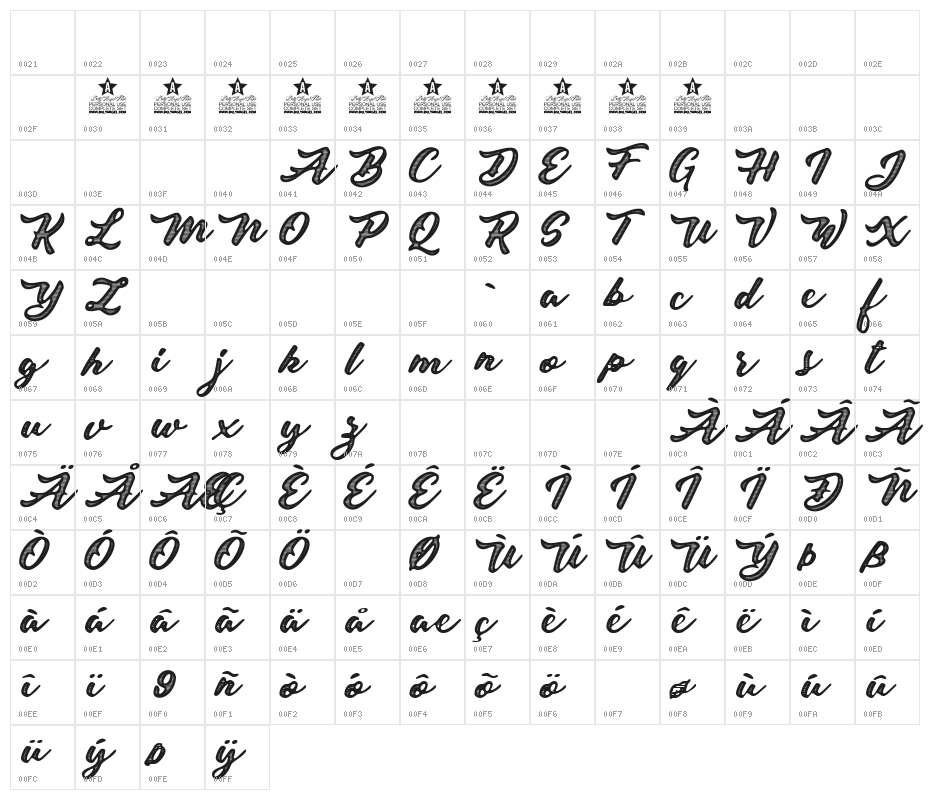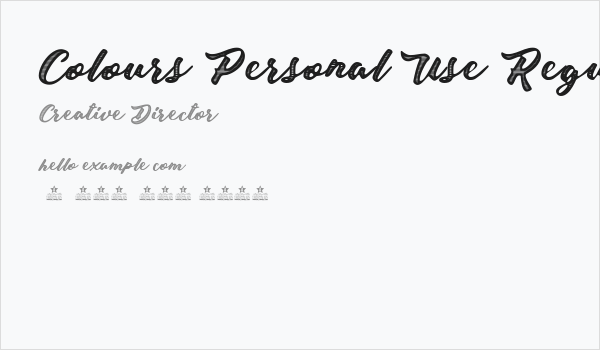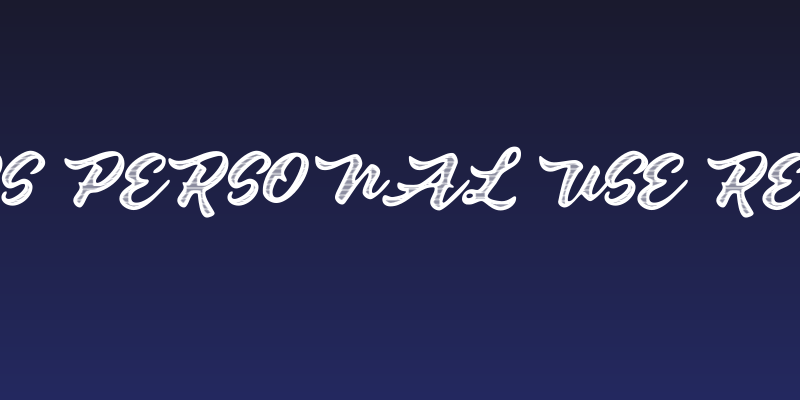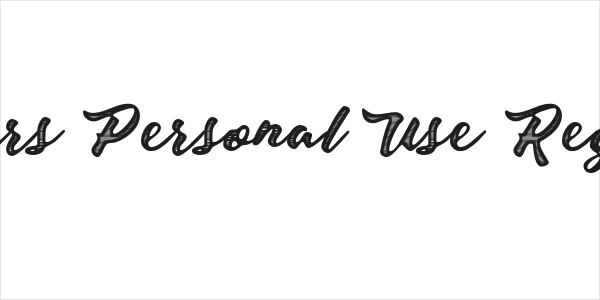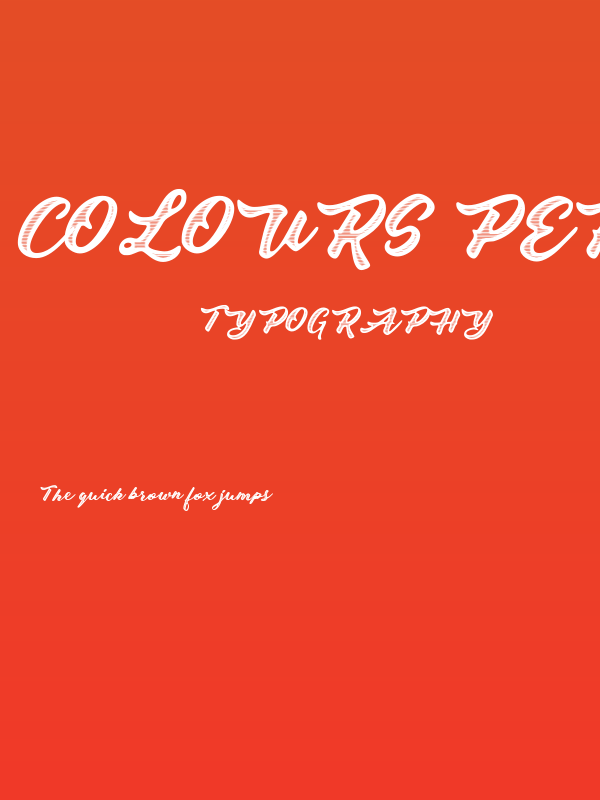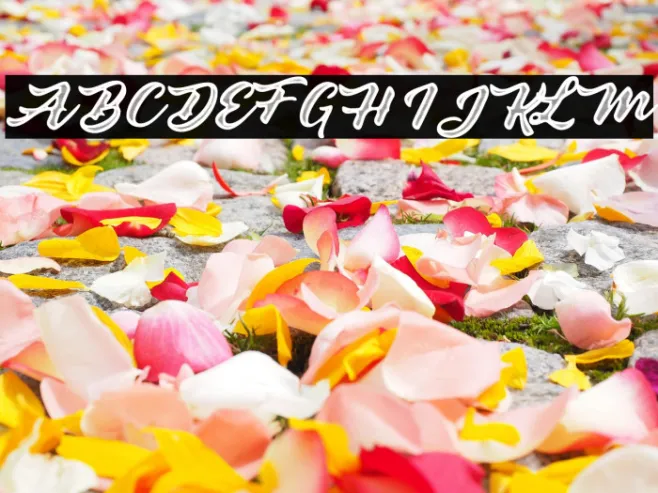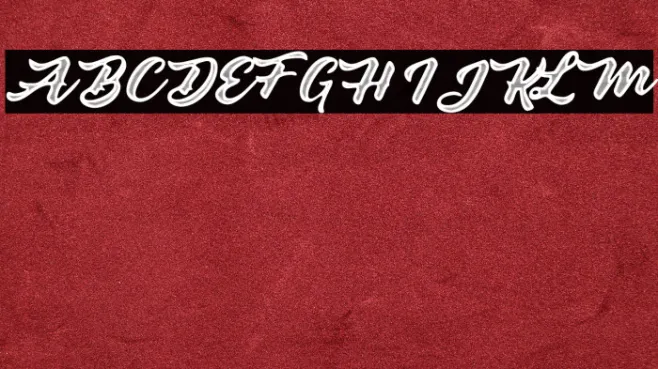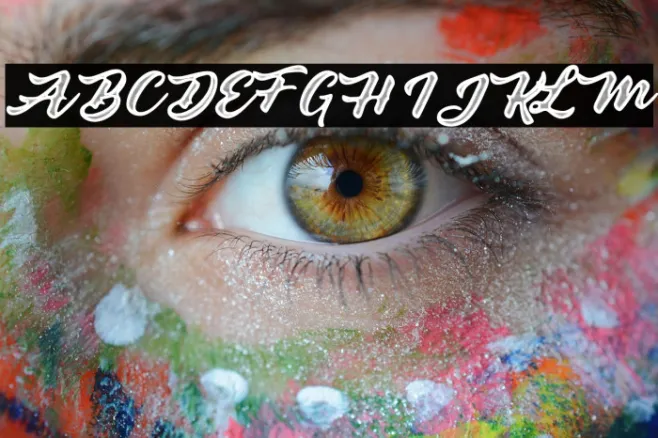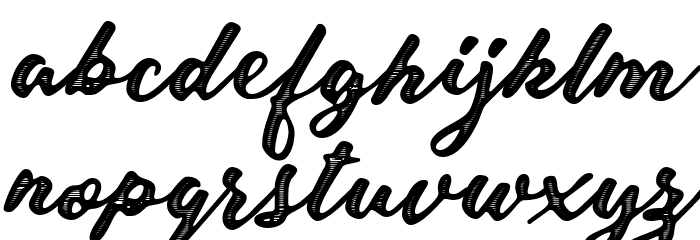
Colours Personal Use Regular Font
Colours Personal Use Regular Description
This font features a flowing, cursive style with a handwritten appearance. The letters are interconnected, creating a seamless and elegant look. The strokes are smooth and consistent, with a slight slant that adds to its dynamic feel. The uppercase letters are bold and prominent, while the lowercase letters maintain a balanced and harmonious flow. The font includes a full set of uppercase and lowercase letters, numbers, and a selection of special characters. Its decorative nature makes it suitable for creative and expressive projects.